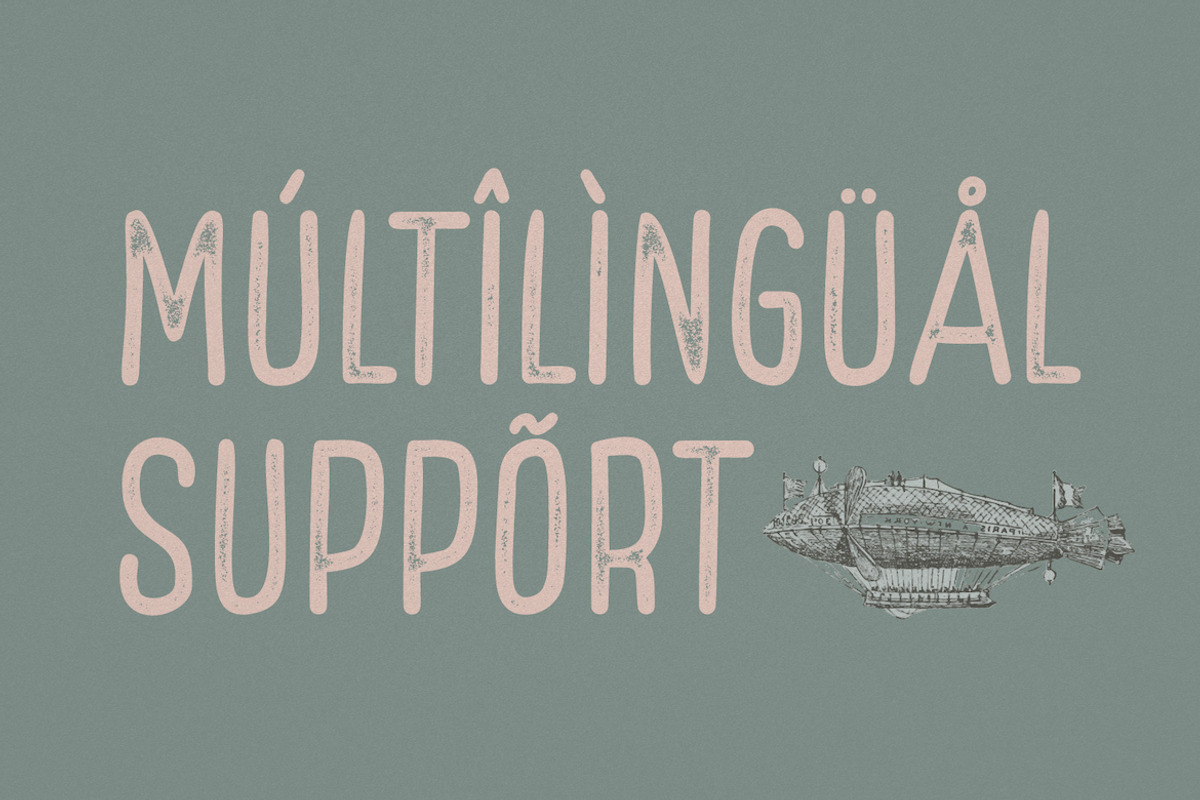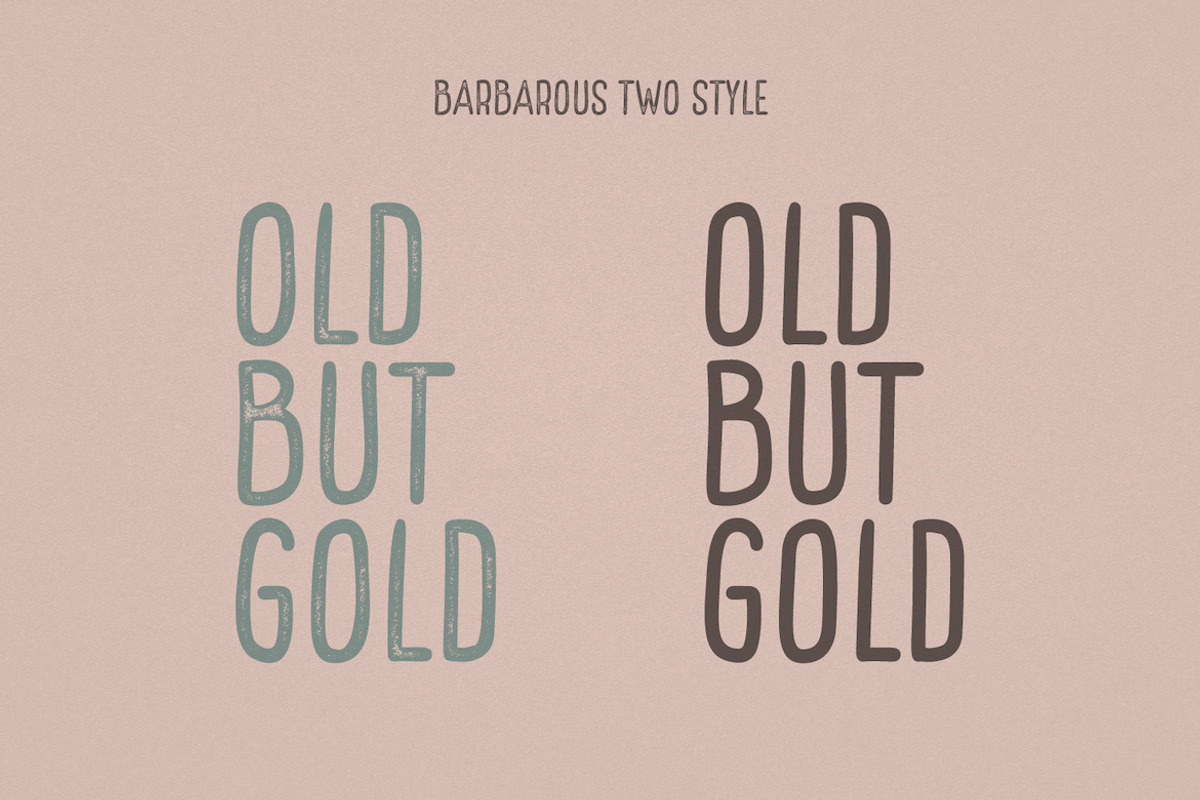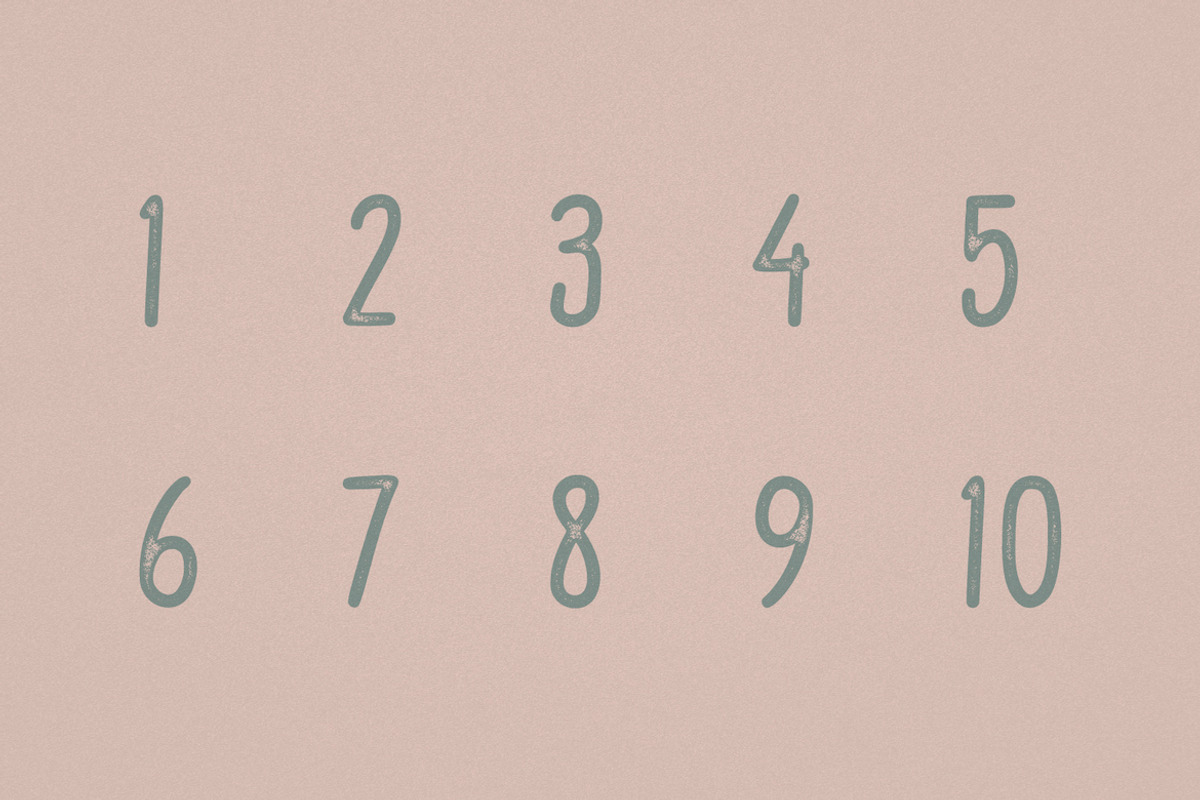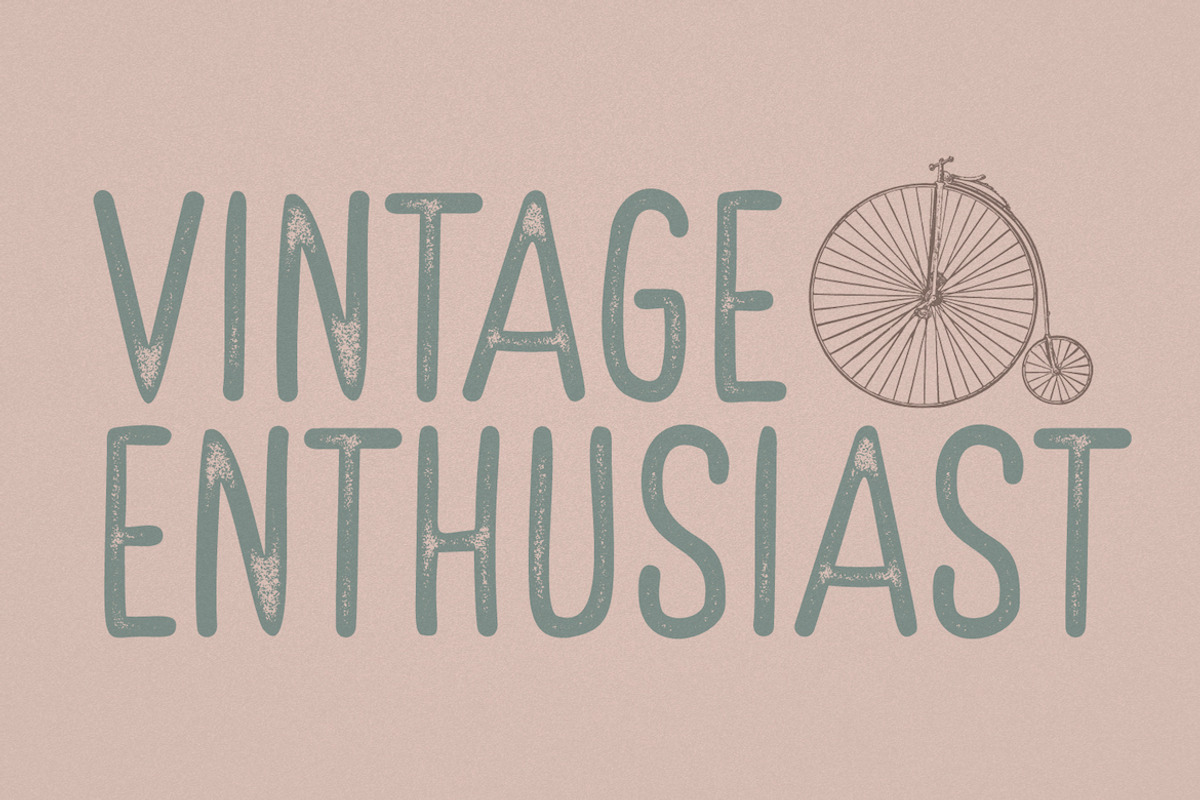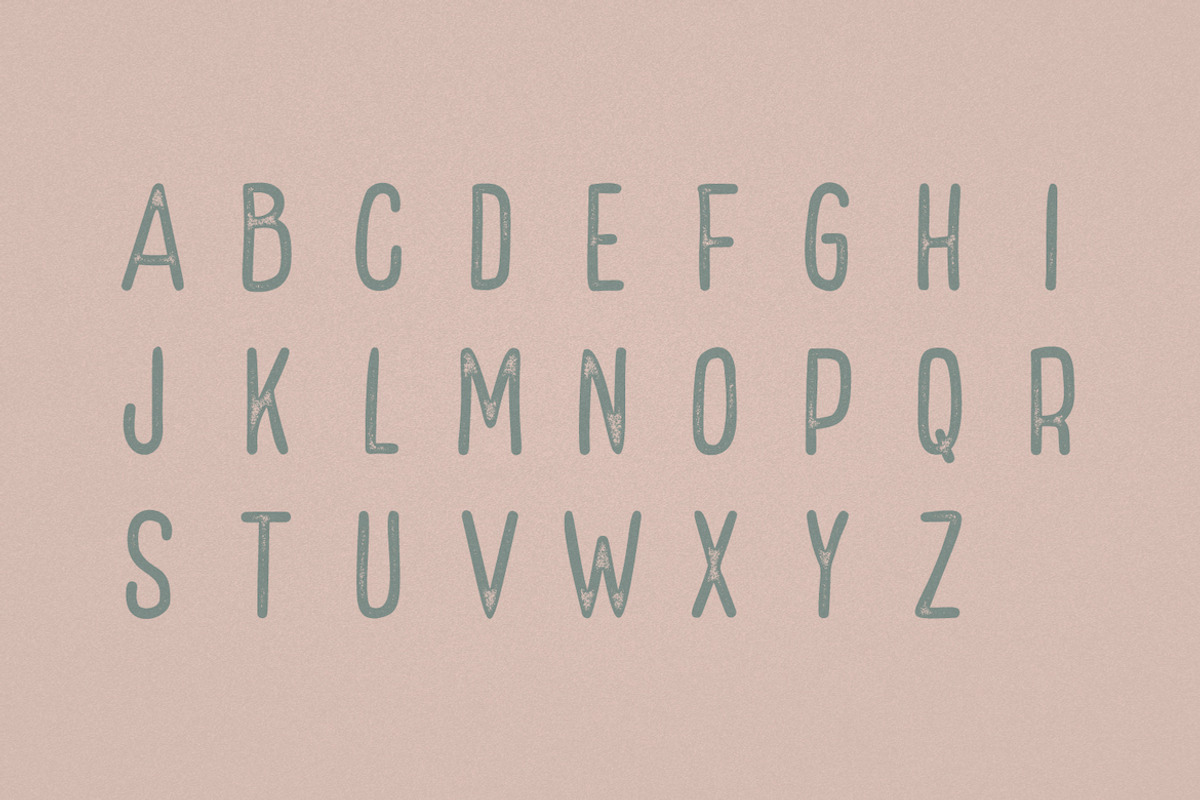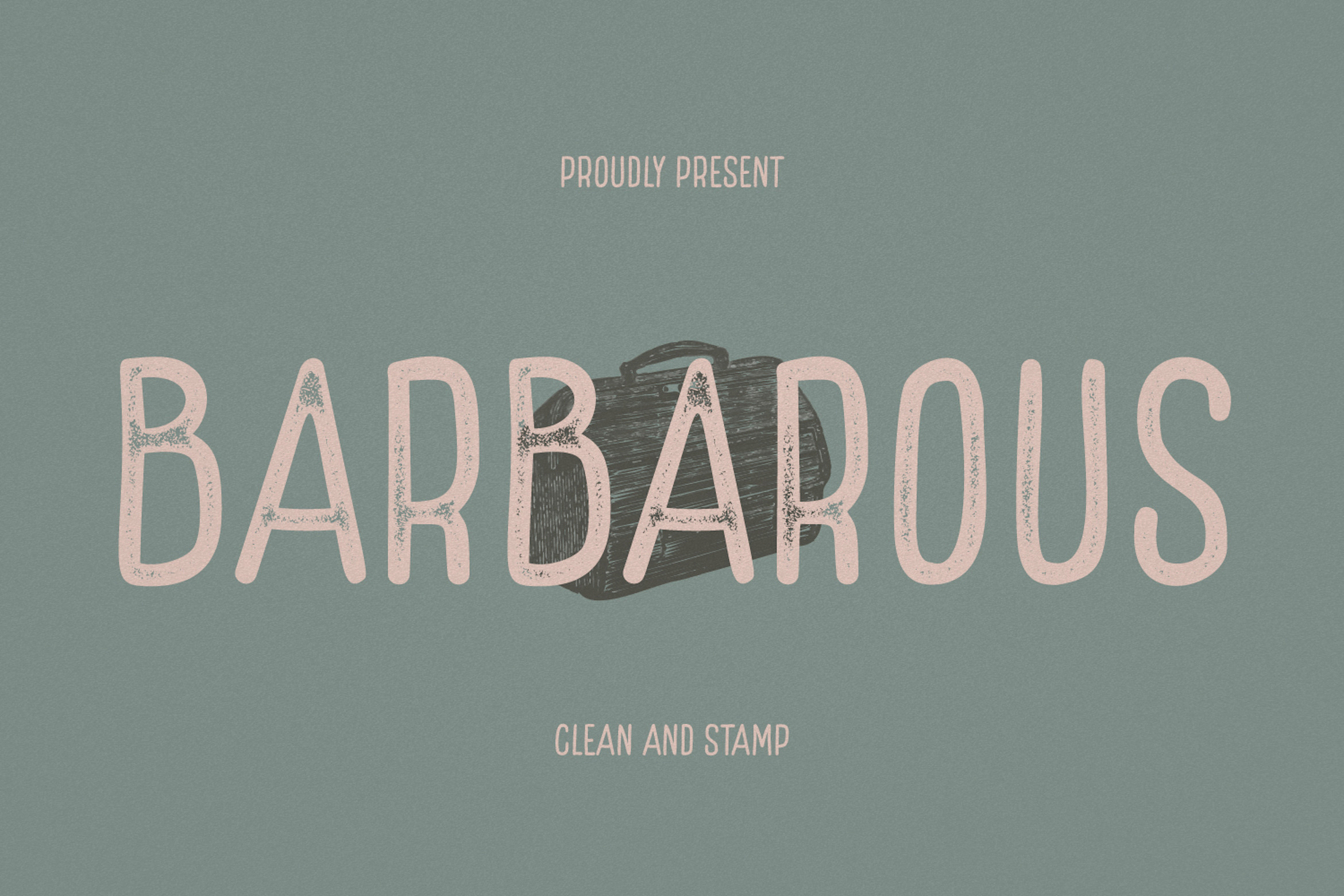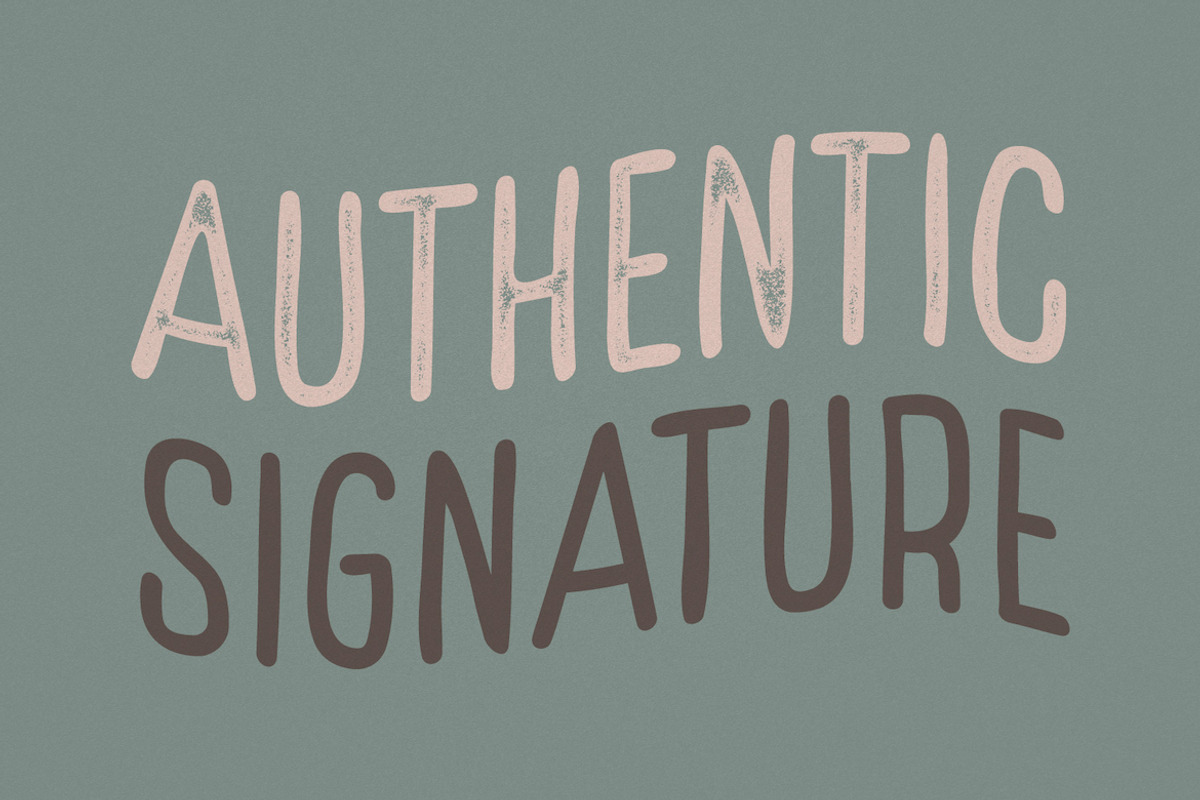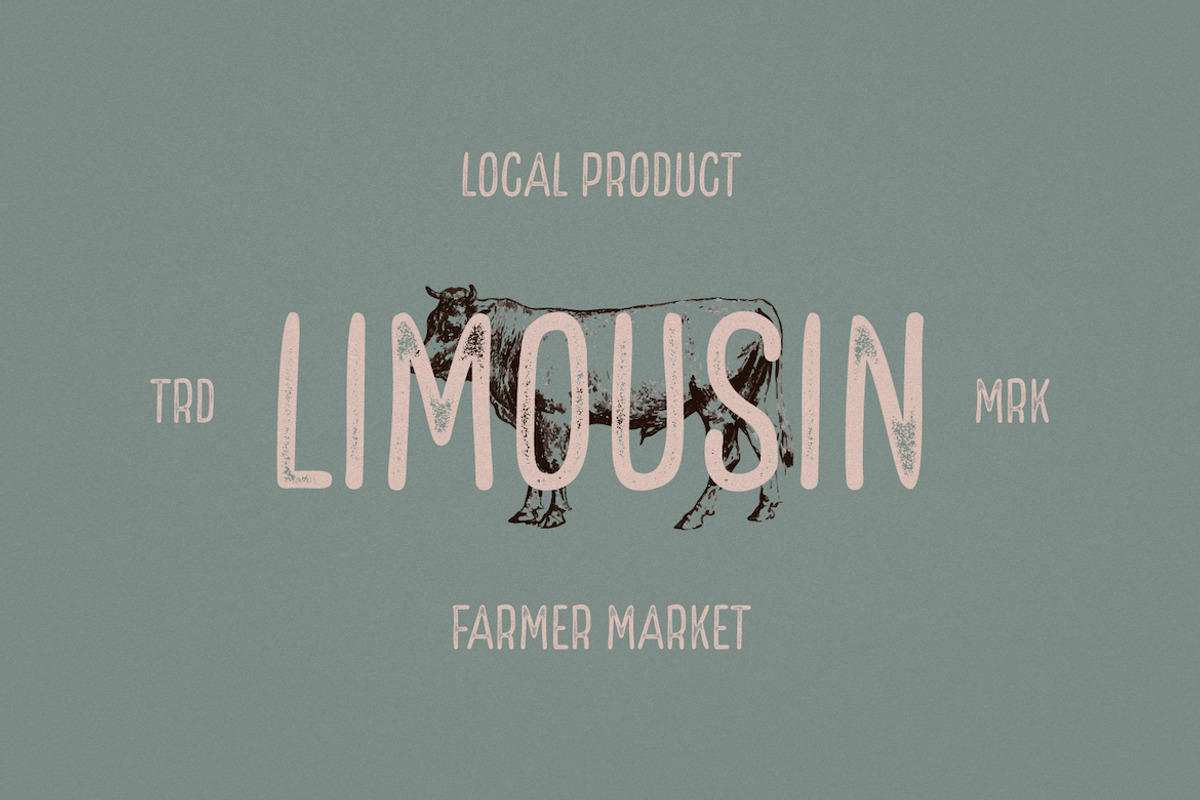
Barbarous Vintage Sans Serif Font
Introducing Barbarous, a versatile sans serif font with two distinct styles: clean and stamp vintage. This font combines modern simplicity with a touch of nostalgic charm, making it perfect for retro-inspired designs. Whether you're creating logos, branding, posters, or other projects, Barbarous will add a unique character to your creations. With both uppercase and lowercase letters, numbers, punctuations, and multilingual support, this font offers flexibility for various design needs. It is PUA encoded, ensuring easy access to all the glyphs and sweeping ligatures. Discover the full character set of Barbarous and unleash your creativity with its clean and vintage aesthetics.